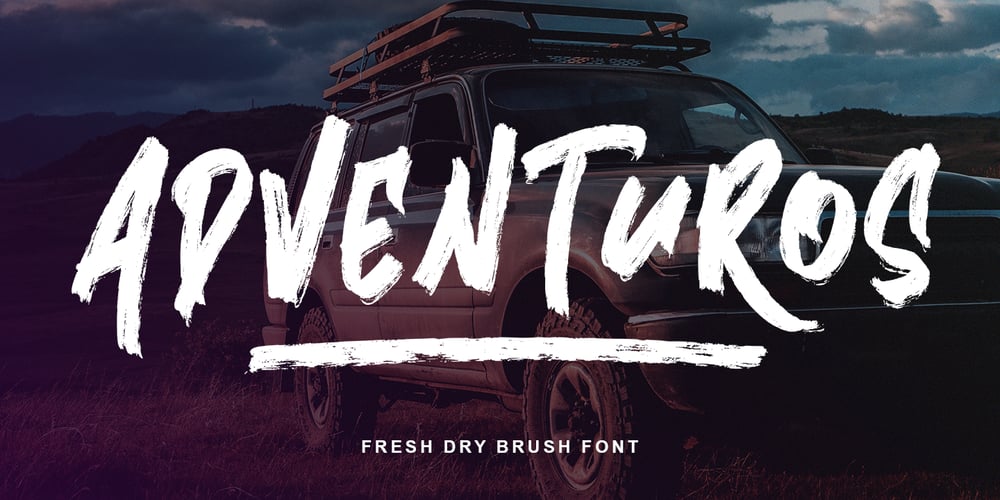
Adventuros
Adventuros font
Adventuros Font Family was designed by Abo Daniel and published by Abo Daniel. Adventuros contains 2 styles and family package options. introducingADVENTUROS- a fresh dry brush font -This font is great for branding, packaging, logos, cards, apparel, quotes, banner, social media, and another project that needs urban style.Adventuros is All Capital fonts, but the uppercase and lowercase characters are totally different. You can combine them as you like. I also created 52 swash to complete this product. They will be a perfect combination.Features: Uppercase Lowercase Number & Punctuations International language Swash PUA Encoded Hope you love it.Grab it fast!regards,Abo Daniel Studio